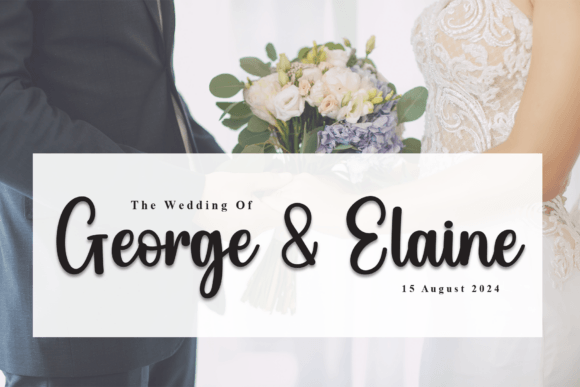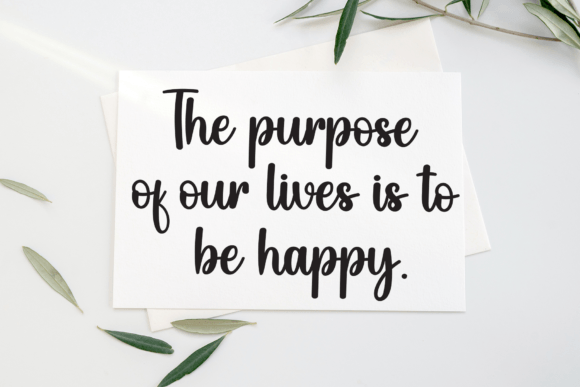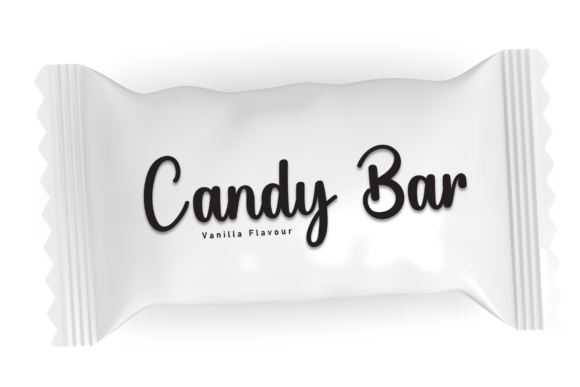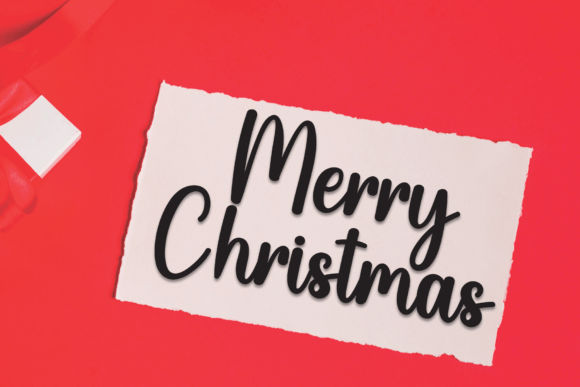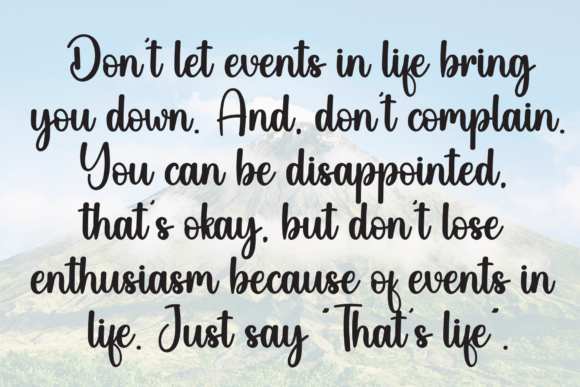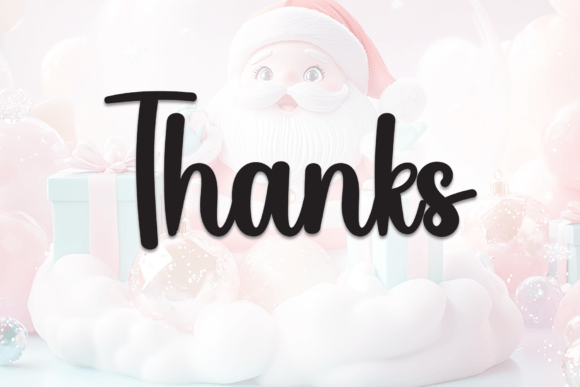
Introduction to Royale Santa Font
As a designer, have you ever found yourself rummaging through your digital library, searching for the perfect font to match the playful tone of your latest creative project? Perhaps you’re planning a whimsical wedding invitation or designing a set of cheerful greeting cards. Whatever the case, you’re about to discover a delightful addition to your design arsenal – the Royale Santa Font.
This charming handwritten font exudes sweetness with every stroke, making it the perfect choice for adding a light-hearted touch to any design. With its unique character and warm personality, the Royale Santa Font is sure to bring a smile to your clients’ faces and elevate your creative endeavors to the next level.
As a valuable resource for designers, the Royale Santa Font offers a high-quality, free download option, complete with a transparent background, making it easy to integrate into your designs. Get ready to infuse your projects with a dash of whimsy and delight with this enchanting typography.
Key Features of Royale Santa Font
- Unique, elegant, and festive design perfect for holiday-themed projects
Honest Review: Royale Santa Font
As a designer, I’ve had the chance to work with many fonts, and I’m excited to share my thoughts on the Royale Santa Font. This font is a fantastic addition to any design resource collection, especially when it comes to creating festive and fun designs.
Here are some things that I think work well:
- ✨ High quality: The Royale Santa Font is crisp and clear, making it perfect for both digital and print designs.
- ✨ Versatile: This font can be used for a wide range of creative projects, from holiday cards to advertisements.
- ⚠️ Limited character set: The Royale Santa Font may not have as extensive of a character set as some other fonts, which can limit its use in certain designs.
- ⚠️ Not suitable for body text: Due to its ornate design, the Royale Santa Font may not be the best choice for large blocks of body text.
Overall, I’m really impressed with the Royale Santa Font. Its unique design and high quality make it a great addition to any design resource collection. Whether you’re working on a holiday design or just want to add some festive flair to your project, this font is definitely worth checking out.
Some common use cases for the Royale Santa Font include holiday-themed designs, party invitations, and festive social media posts. To get the most out of this font, use it in conjunction with other high-quality design resources and experiment with different font sizes, colors, and styles to create a unique look.